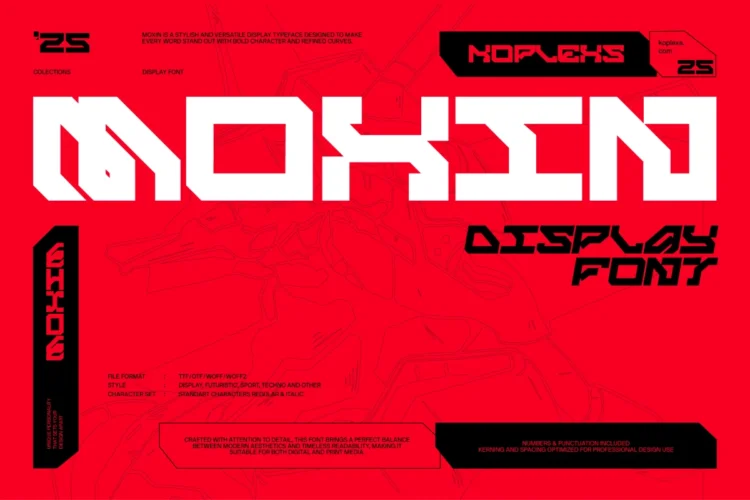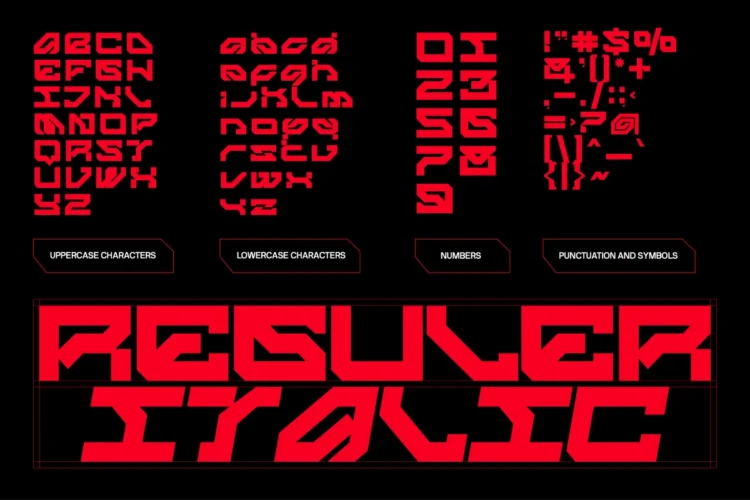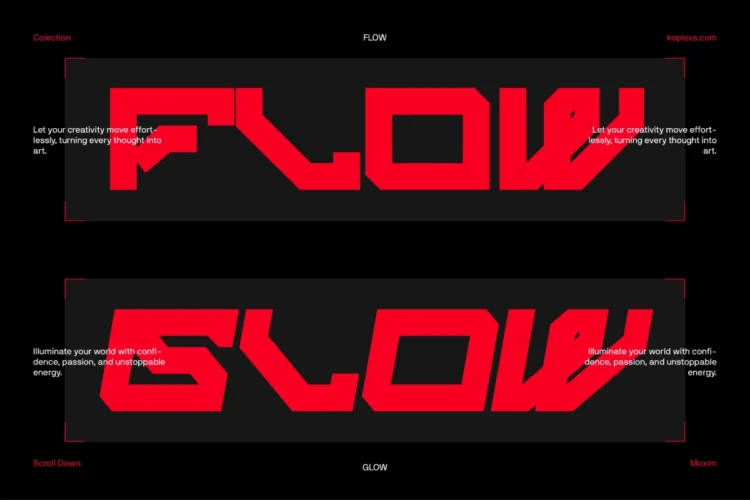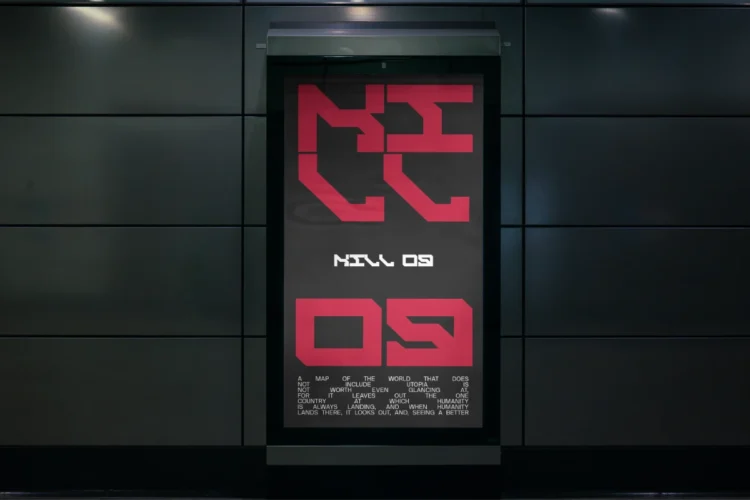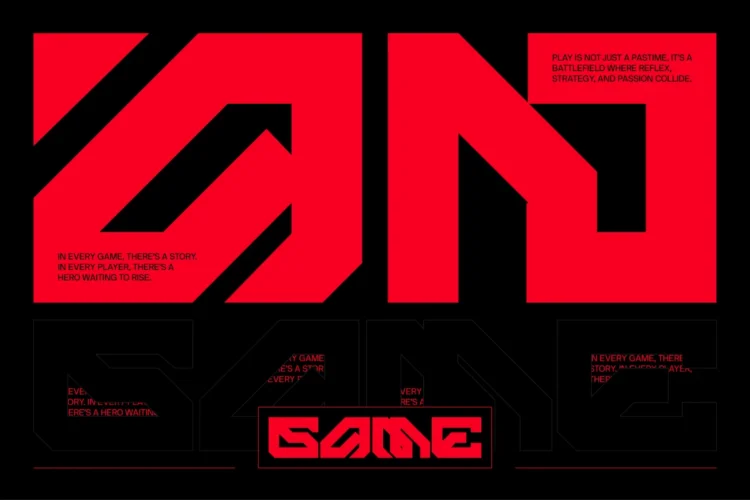
Moxin Font – Futuristic Cyberpunk Tech Font for Modern Design and Sci-Fi Projects
Moxin Font is a futuristic font that merges bold geometric shapes with cyber aesthetics, making it perfect for techy fonts, cyberpunk font, and modern tech fonts lovers. Designed with precision and innovation, Moxin brings together sharp angles, powerful lines, and a modern sans serif base that embodies next-generation design.
This cyber font is inspired by digital systems, robotics, and font technology trends, making it an ideal choice for projects that demand strength, precision, and a sleek sci fi font look. Whether you’re designing for gaming interfaces, font game titles, or futuristic branding, Moxin stands out with a commanding presence.
Moxin Font Included :
- Regular & Italic
Moxin Font is versatile and works beautifully for :
- Futuristic branding & tech startups
- Esports & gaming logos
- Sci-fi posters & cyberpunk themes
- Movie titles & modern typography
- Technology presentations & digital art
- Headline and display design
✨Moxin Font Features:
- Styles: Regular & Italic
- Includes: Uppercase, lowercase, numbers, punctuation, and symbols
💡 Why Choose Moxin Font:
Moxin is crafted for designers who embrace innovation and bold expression. Its tech font structure ensures readability and impact, while its geometric precision conveys a modern, advanced aesthetic — ideal for both print and digital media.
Bring your vision to life with Moxin Font, where form meets future.